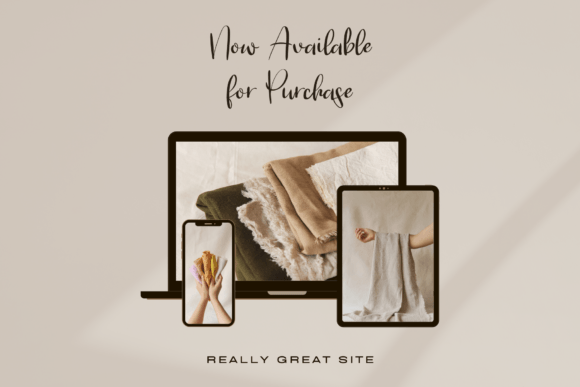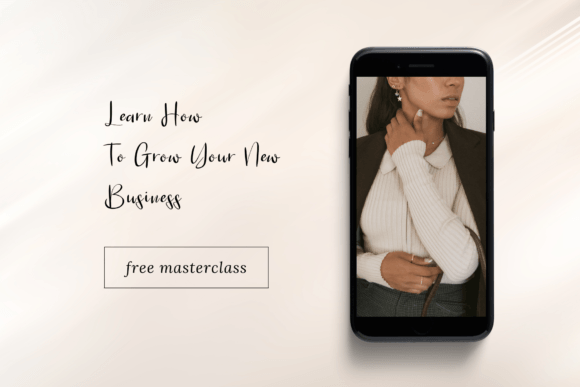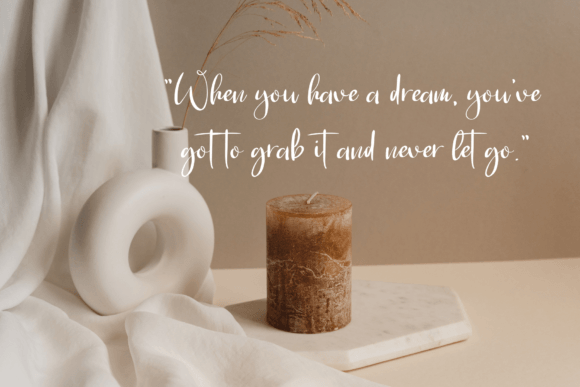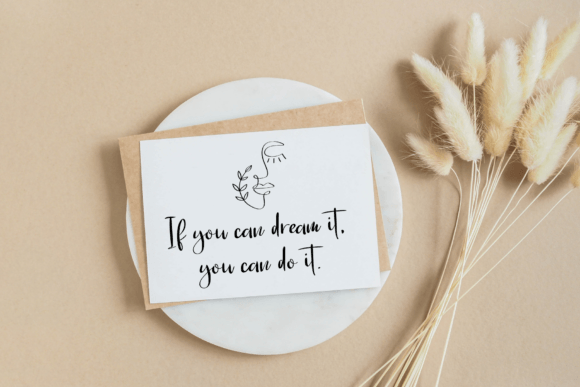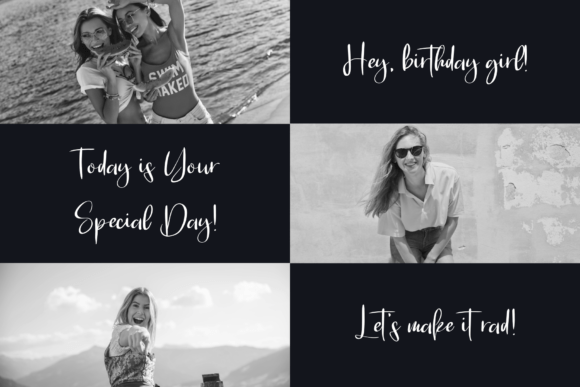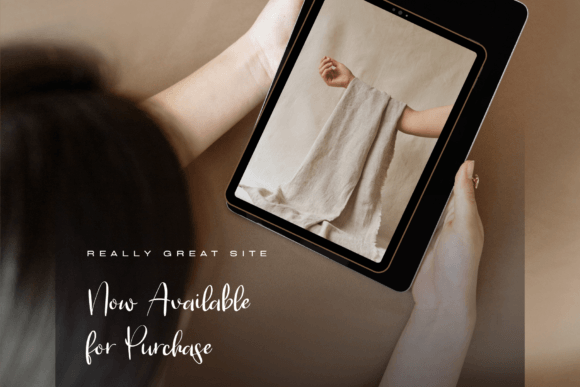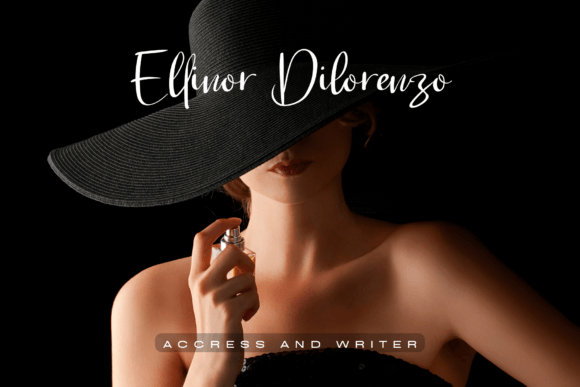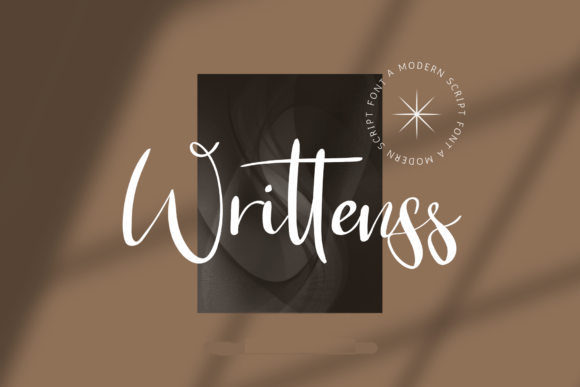
Writtenss Font
About Writtenss Font
“Writtenss” is a delicate, elegant, and flowing handwritten font that exudes charm and sophistication in every character. This font is a versatile choice that can breathe life into a wide range of design projects.
The enchantment of “Writtenss” is evident in its graceful and well-balanced characters. Each letter is carefully crafted to maintain a sense of elegance and fluidity, making it a perfect fit for various design themes and styles. Whether you’re working on invitations, branding, logos, or any project that requires a touch of sophistication, “Writtenss” is the typeface that can bring your creative ideas to life.
One of the standout qualities of “Writtenss” is its adaptability. It seamlessly integrates into diverse design contexts, adding a layer of refinement and timeless beauty to each project. This font showcases how typography can enhance the visual harmony and appeal of your work.
With “Writtenss” in your font collection, you have a tool that can transform your creative ideas into captivating and elegant designs. It serves as a reminder of the beauty that can be achieved through well-crafted typography.
In summary, “Writtenss” is a delicate and elegant handwritten font that can breathe life into a wide range of design projects. Its well-balanced characters and timeless charm make it a valuable asset for designers and creators looking to add a touch of sophistication to their work. Whether you’re designing invitations, branding, or logos, “Writtenss” is there to make your projects come alive with its graceful and flowing style.